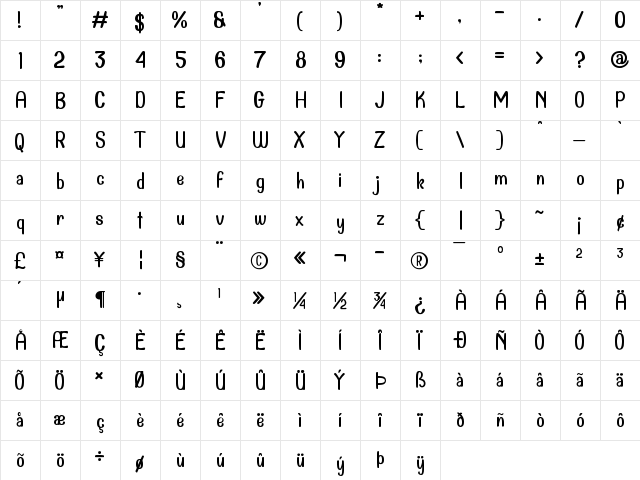
Dollanan Regular
| Foundry | Sons Of Baidlowi |
| Designer | Azmilbahar |
Design Context for Dollanan Typeface
Dollanan takes a measured approach to typography — its balanced proportions and neutral character make it a reliable workhorse for both digital and print work.